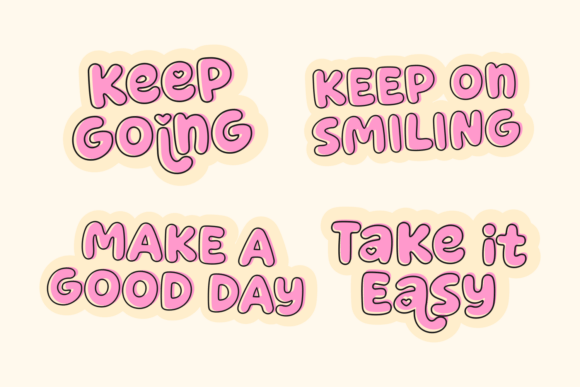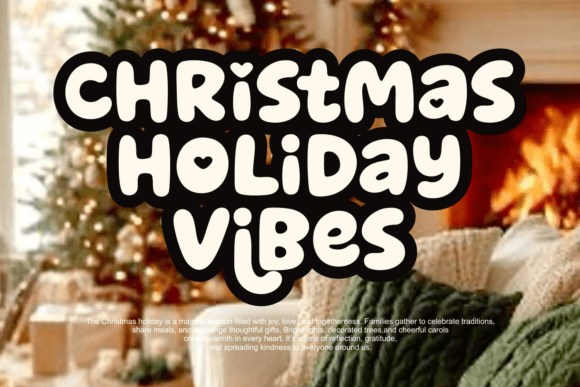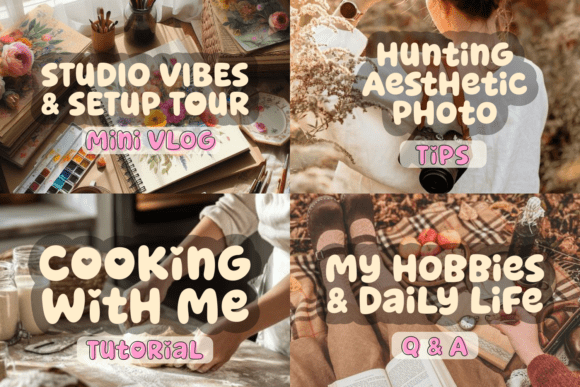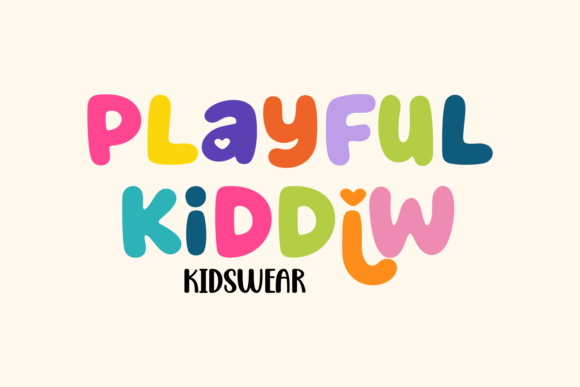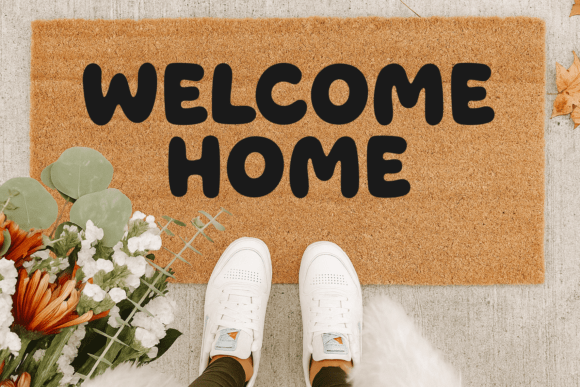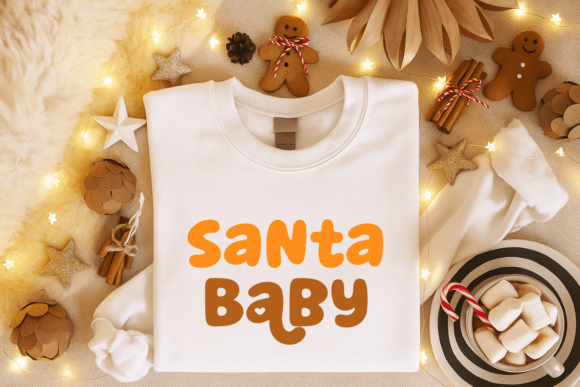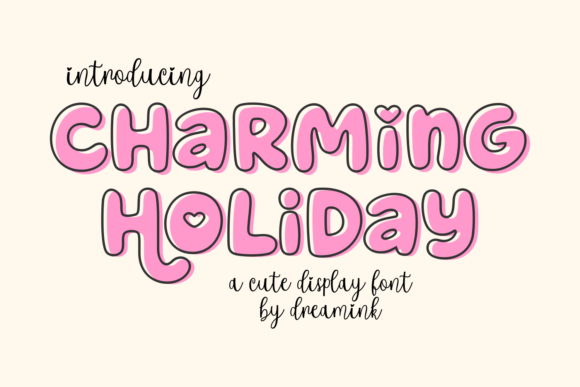
Introducing Charming Holiday Font: Add Joy and Sweetness to Your Designs
Are you looking for a font that can add a touch of joy and sweetness to your creative projects? Look no further than Charming Holiday Font! This adorable display font is designed to bring happiness and warmth to your designs, making it perfect for holiday cards, Valentine’s projects, wedding invitations, posters, stickers, and branding.
What Makes Charming Holiday Font So Special?
Charming Holiday Font is a cute and playful font that features bold rounded letters, heart-shaped details, and a fun cartoon-inspired style. Its cheerful personality makes it ideal for children’s designs, party themes, or any project that needs a touch of love and happiness. The font’s unique design elements, such as heart-shaped details, add a whimsical touch that’s sure to delight your audience.
Perfect for Holiday and Valentine’s Day Projects
Charming Holiday Font is specifically designed for holiday and Valentine’s Day projects. Its festive and playful style makes it perfect for creating holiday cards, gift tags, and other seasonal designs. The font’s bold and rounded letters ensure that your message stands out, while its heart-shaped details add a romantic touch that’s perfect for Valentine’s Day projects.
Ideal for Wedding Invitations and Party Themes
Charming Holiday Font is not just limited to holiday and Valentine’s Day projects. Its elegant and playful style makes it perfect for wedding invitations, party themes, and other celebrations. The font’s unique design elements, such as its heart-shaped details, add a touch of romance and whimsy that’s sure to impress your guests.
Fun and Versatile for Digital and Print Designs
Charming Holiday Font is a versatile font that can be used for both digital and print designs. Its bold and rounded letters ensure that your message stands out, whether you’re creating digital products, DIY crafts, or print designs. The font’s playful style makes it perfect for children’s designs, party themes, or any project that needs a touch of fun and happiness.
Key Features of Charming Holiday Font
- Cute and playful display font: Charming Holiday Font features a unique and playful design that’s sure to delight your audience.
- Bold rounded letters: The font’s bold and rounded letters ensure that your message stands out.
- Heart-shaped details: The font’s heart-shaped details add a whimsical touch that’s perfect for Valentine’s Day and holiday projects.
- Fun cartoon-inspired style: The font’s playful style makes it perfect for children’s designs, party themes, or any project that needs a touch of fun and happiness.
- Perfect for digital and print designs: Charming Holiday Font can be used for both digital and print designs, making it a versatile font for any project.
- Holiday cards and gift tags
- Valentine’s Day projects and wedding invitations
- Children’s designs and party themes
- Posters and stickers
Charming Holiday Font is a delightful font that’s sure to add joy and sweetness to your creative projects. Its cute and playful design, bold rounded letters, and heart-shaped details make it perfect for holiday cards, Valentine’s projects, wedding invitations, posters, stickers, and branding. With its cheerful personality and versatile style, Charming Holiday Font is the perfect font for designers and crafters who want to add a touch of fun and happiness to their designs.